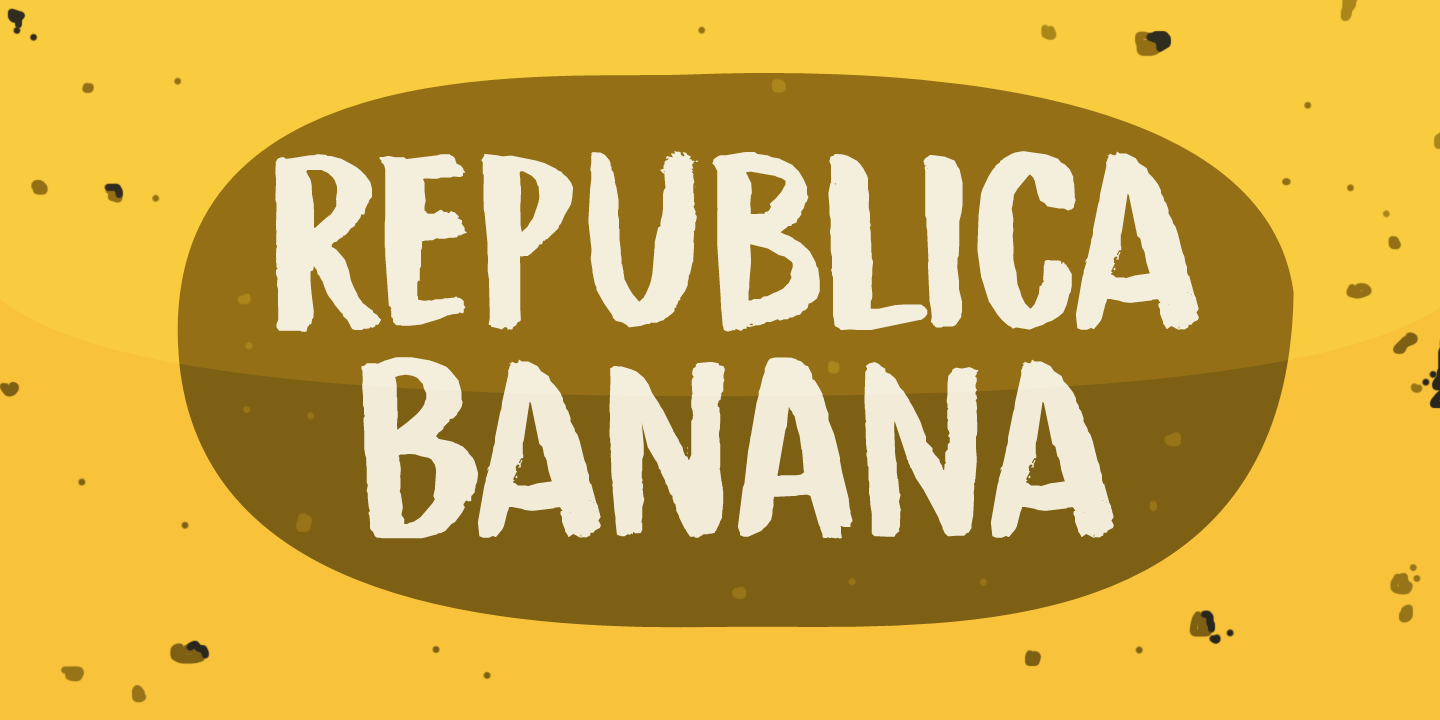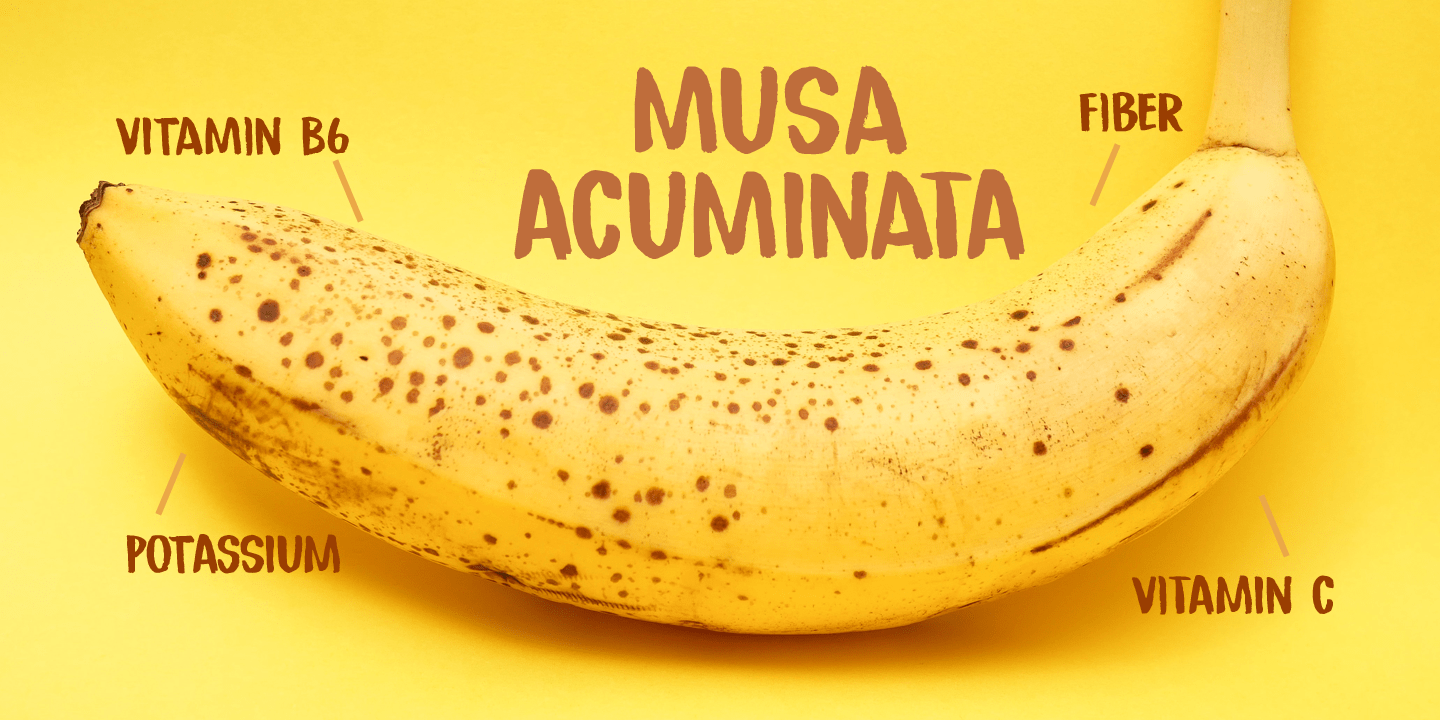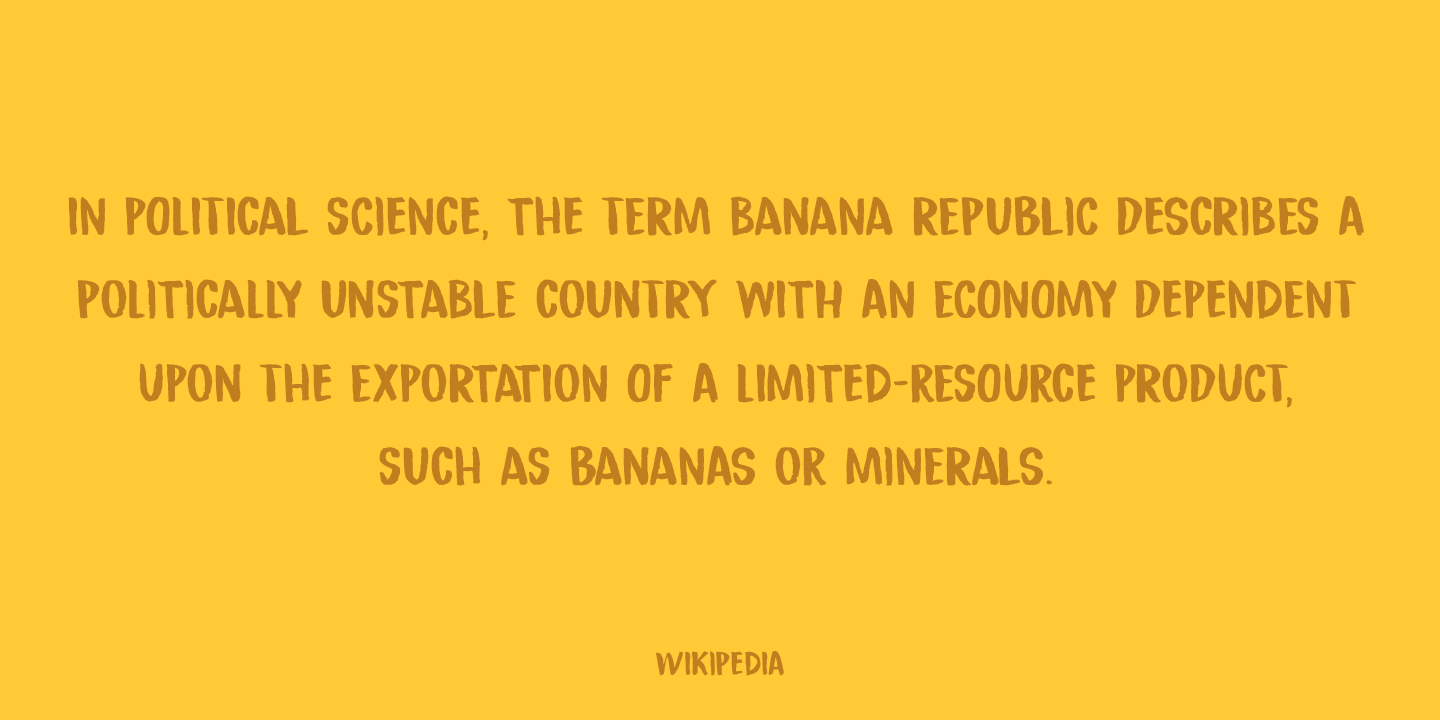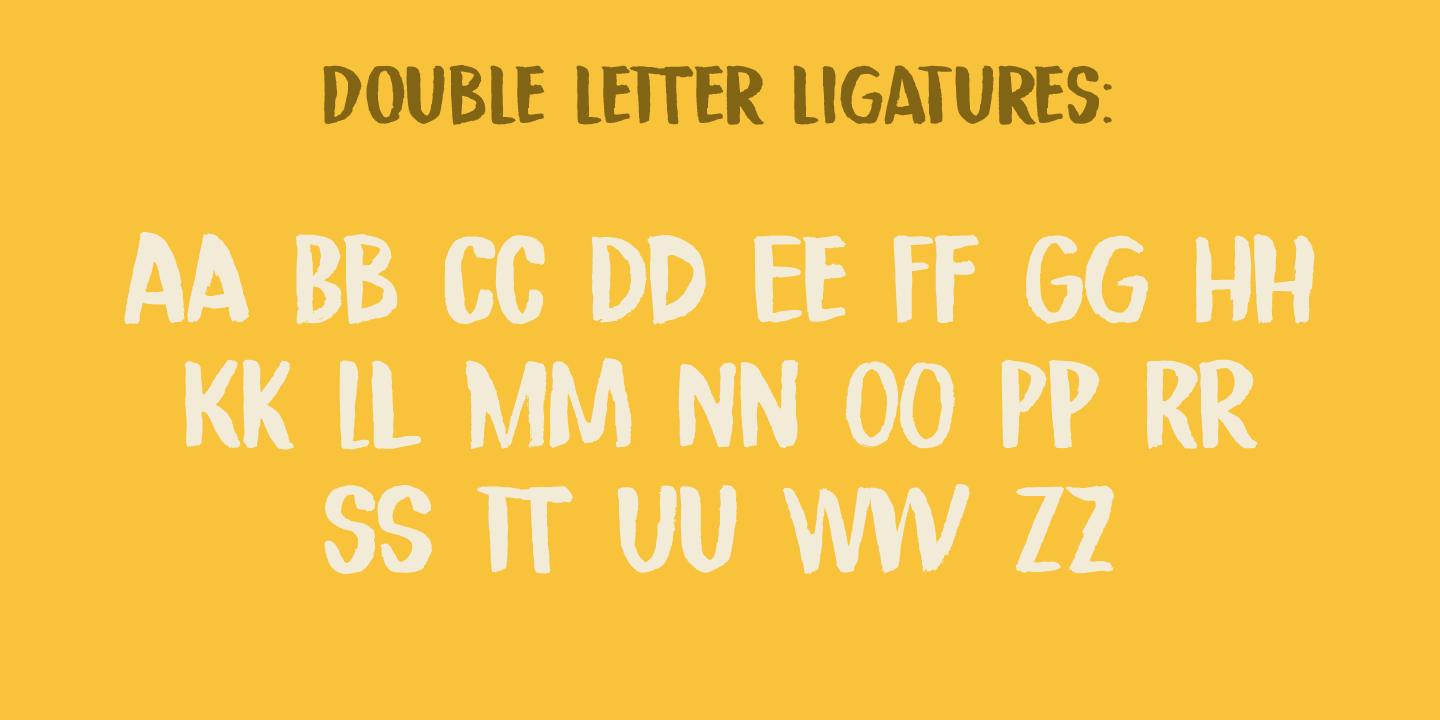
Republica Banana
At home we love bananas: the kids take them to school for 'snack time?, they're healthy and they look pretty as well!
Republica Banana is a pun on the term Banana Republic, which was coined by American author O. Henry in 1901. In economics, a Banana Republic is a country that is run as a private commercial enterprise for the exclusive profit of the ruling class. Of course I can point out a few countries that fit this description, but let's not get into that.
Republica Banana is a very nice, hand painted brush font. It comes with double letter ligatures for the lower case and a lot of diacritics for you to play with.